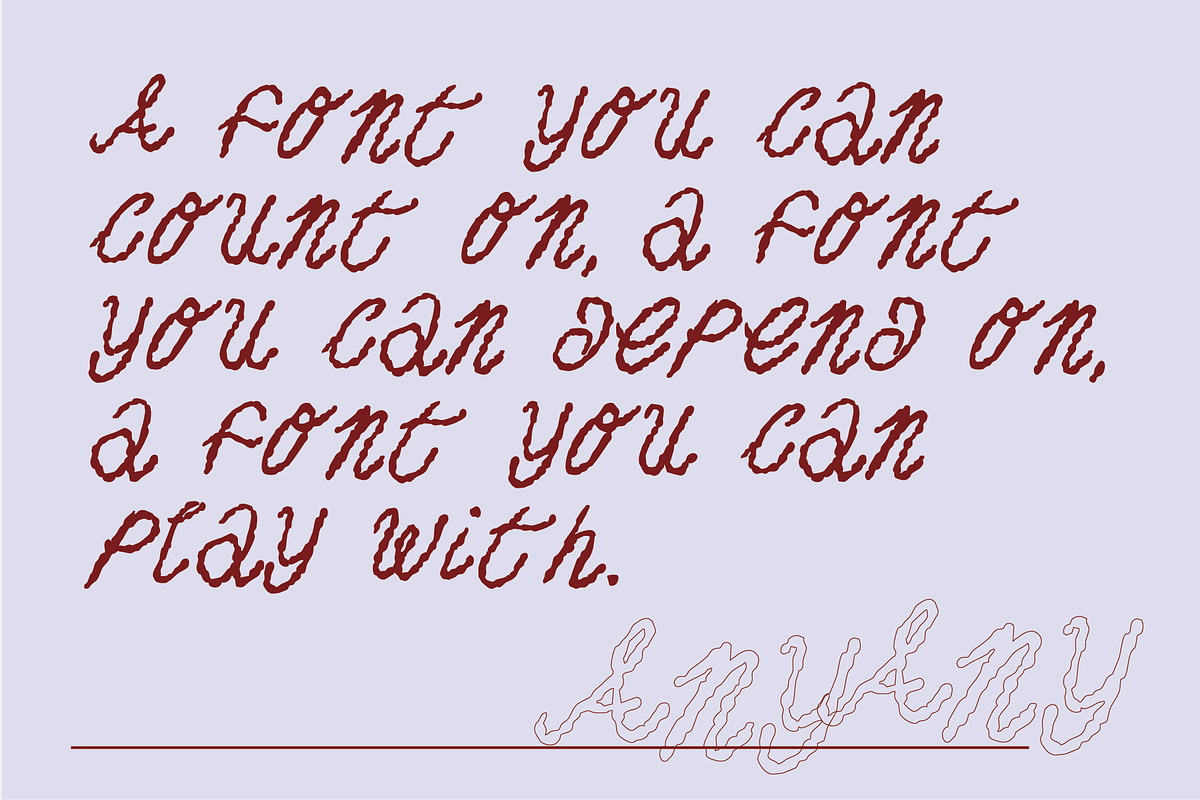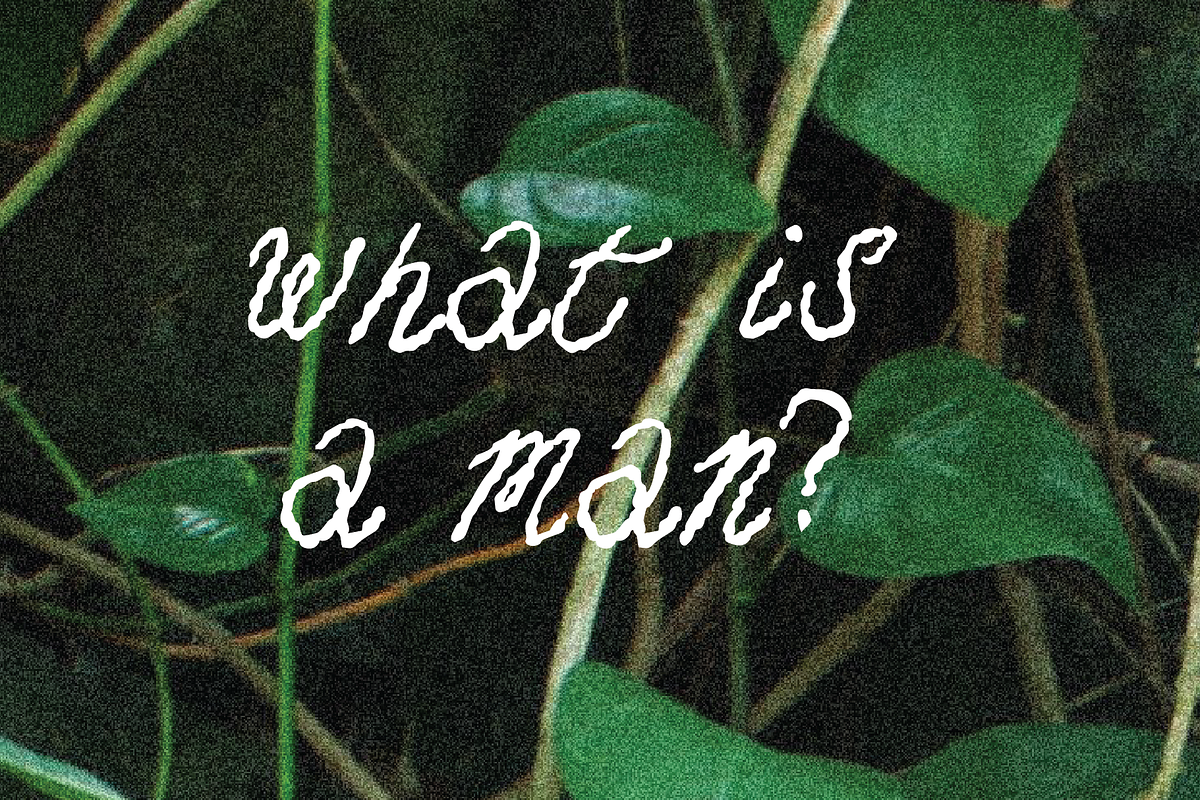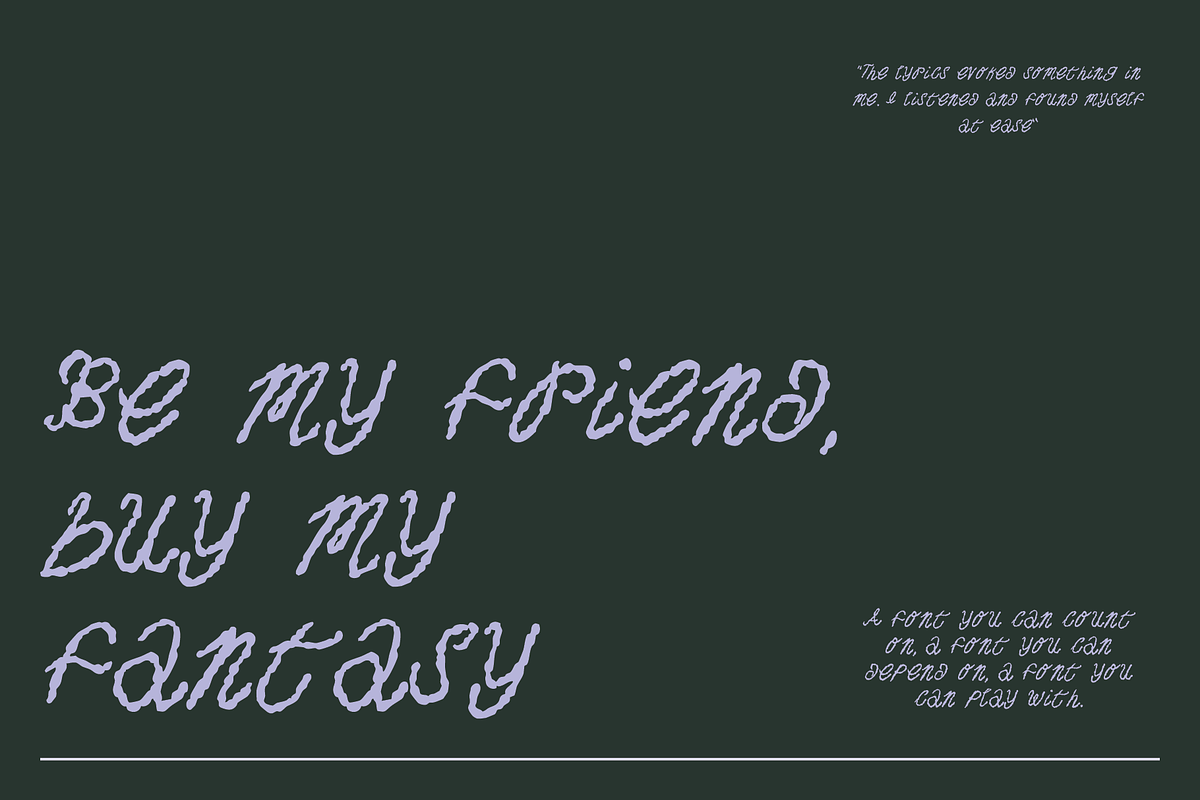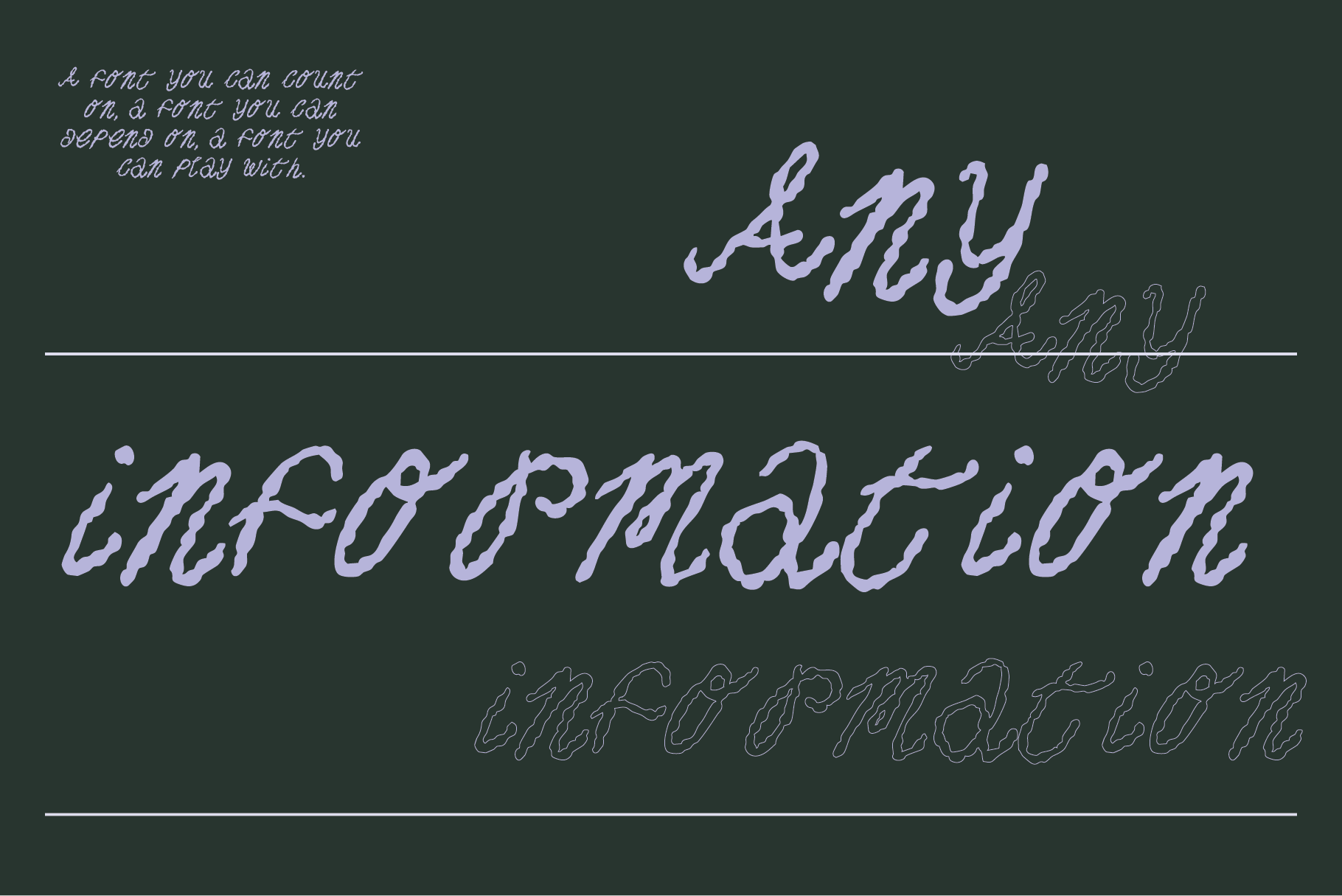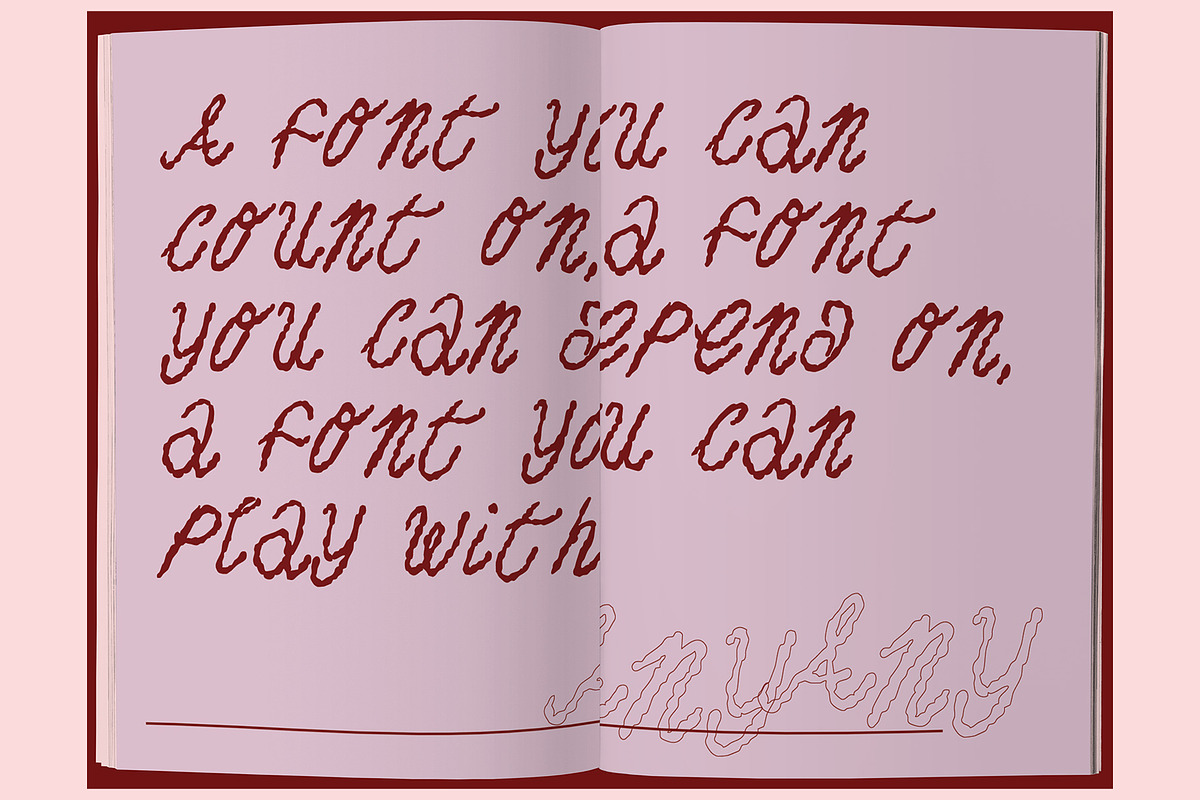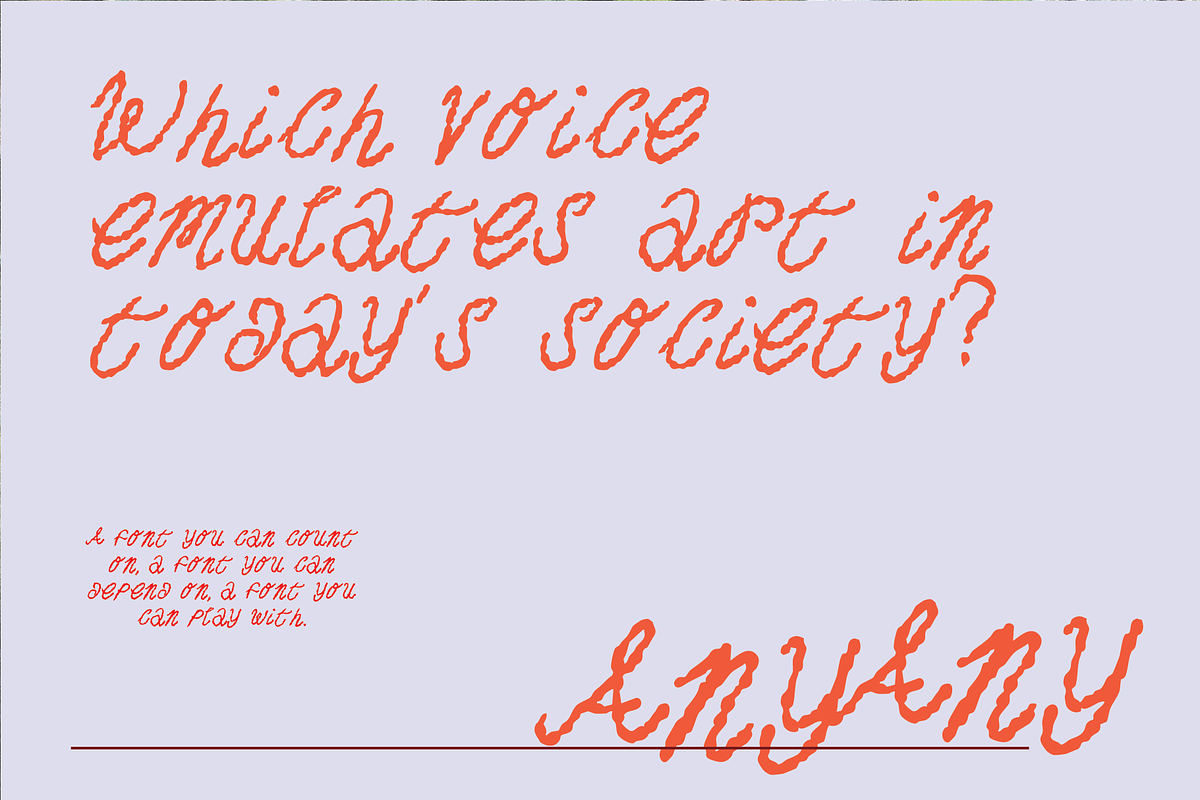
Any Information Display Font
Any Information is a cool display font for all your graphical needs. Created from hand drawn inky lines, this creative font is perfect for posters, film and all your art direction needs.